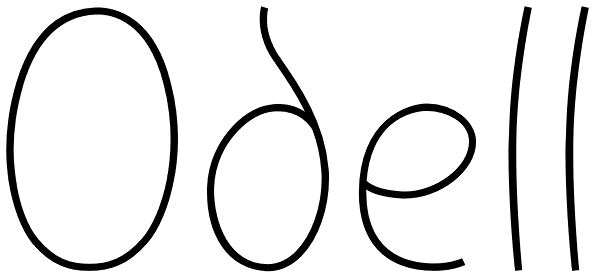
Odell
Odell is a fun, whimsical, yet elegant handwritten font that was created in a light-hearted manner for use in things like menus, invitations, bed and breakfast collateral and whatever else you can dream up. Odell features extra thin letters and it...